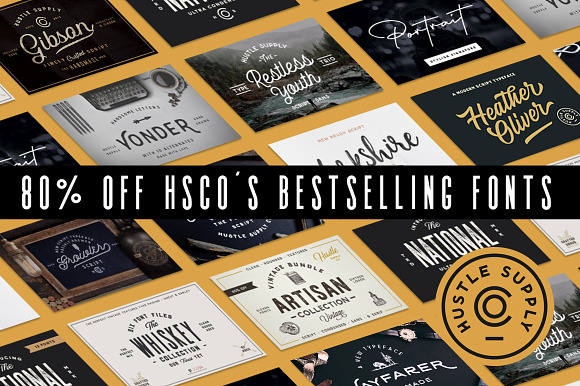
Sale The Bestsellers Font Bundle
Sale The Bestsellers Font Bundle by hustlesupplyco is a font selected for branding, posters, packaging, typography.
Why Sale The Bestsellers Font Bundle is worth a look
Sale The Bestsellers Font Bundle by hustlesupplyco fits naturally into Branding, posters, packaging, typography.